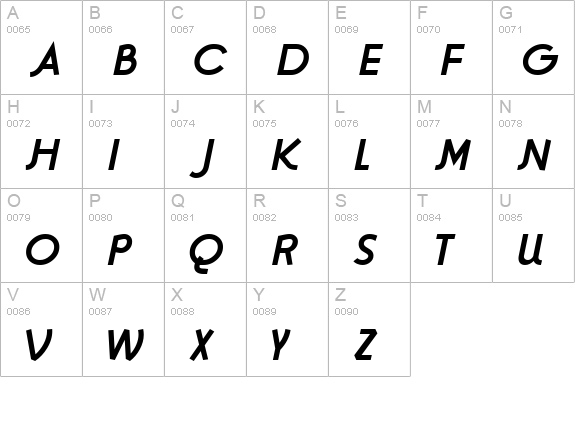
GaumontItalic Font Details
GaumontItalic font is a beautiful and elegant typeface that exudes sophistication and style. Its sleek and flowing design makes it perfect for a wide range of design projects, from branding to invitations to posters. The italicized form of this font adds a touch of flair and uniqueness to any text. What sets GaumontItalic font apart is not only its stunning appearance but also the fact that it is completely free to download. You can easily access this font at FontsMarket.com and start using it in your projects without any cost. With its timeless appeal and versatility, GaumontItalic font is sure to become a staple in your font collection.